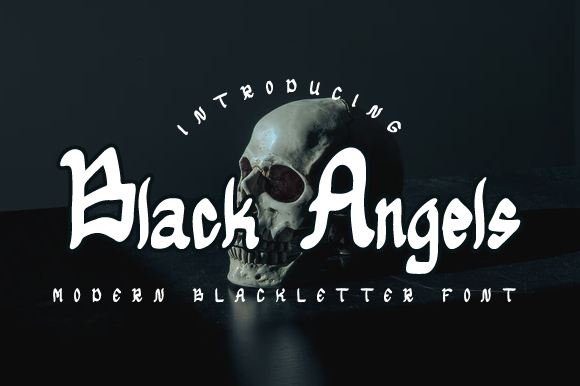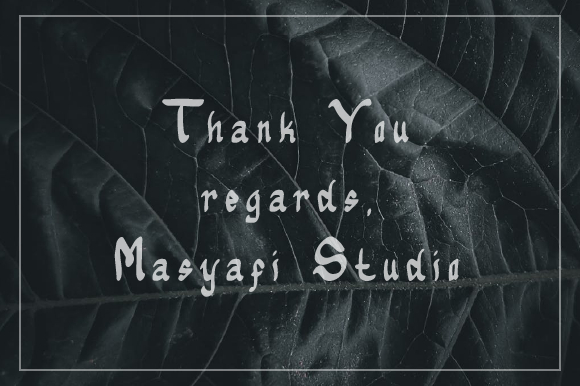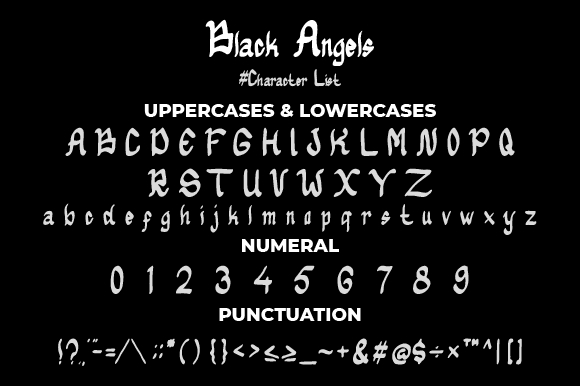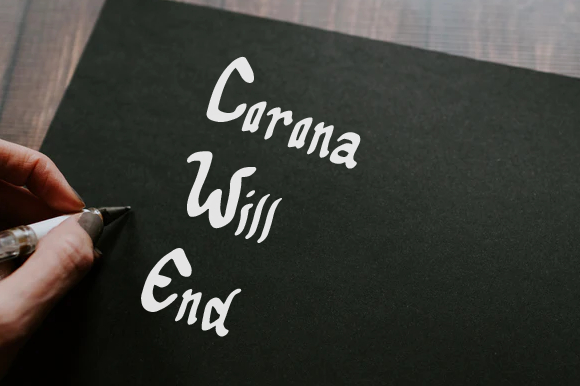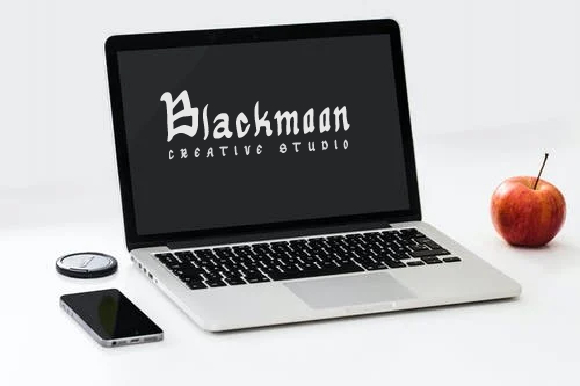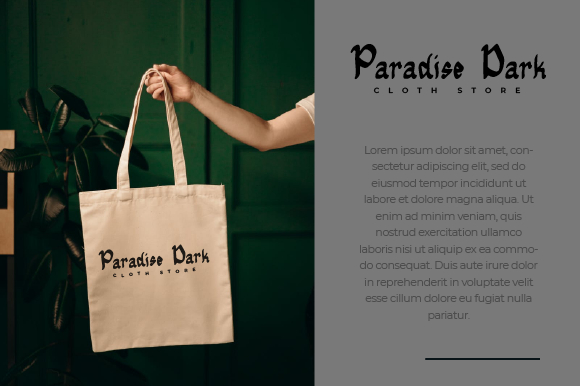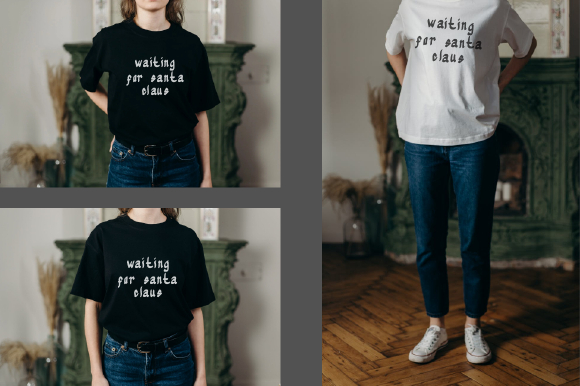
Black Angels Font
About Black Angels Font
Black Angels is a Blackletter font with a modern stroke style. This font is perfect for use as a poster title, logotype, or other designs.